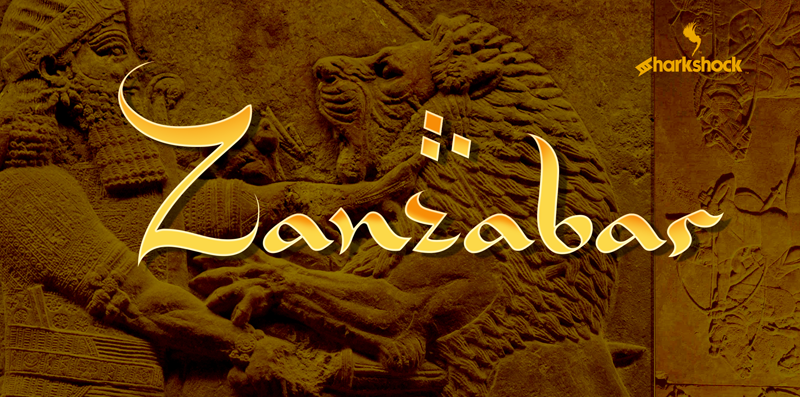
: Zanzabar (Regular)
Designed by Dennis Ludlow
Zanzabar is an exotic display font with a distinctive Middle Eastern flair. Its characters loosely mimic the Arabic script with lowercase letters being much smaller than uppercase. The wispy, brush-like appearance of Zanzabar will work great as an ethnic restaurant logo, children�s book, or movie poster.